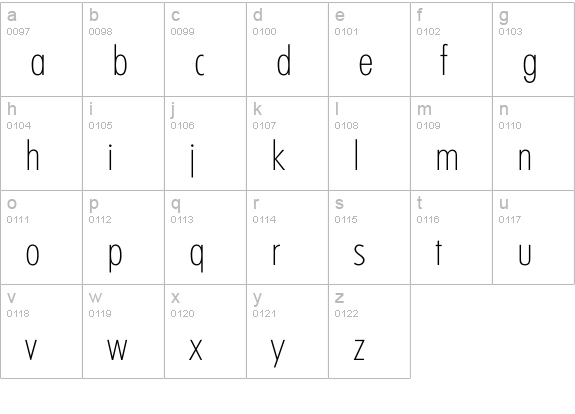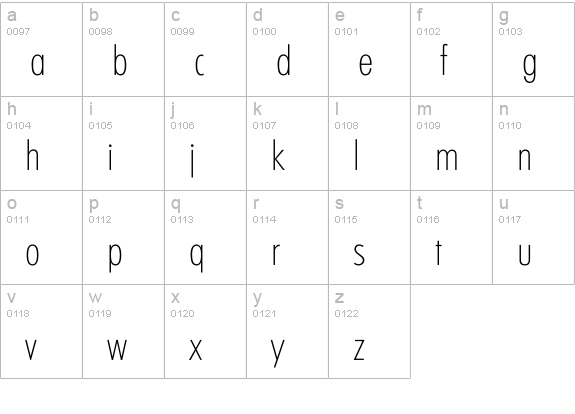
Climerick Xlight font is a delicate and graceful typeface that exudes elegance and sophistication. With its thin and refined strokes, this font is perfect for adding a touch of sophistication to any design project. The Climerick Xlight font is ideal for use in branding, invitations, and editorial designs where a sense of refinement is desired. What makes Climerick Xlight font even more appealing is that it is available for free download at FontsMarket.com. This means you can easily access and use this stunning font in your projects without any cost. Don't miss out on the opportunity to enhance your designs with the beauty of Climerick Xlight font. Download it today and elevate your creative work to new heights.